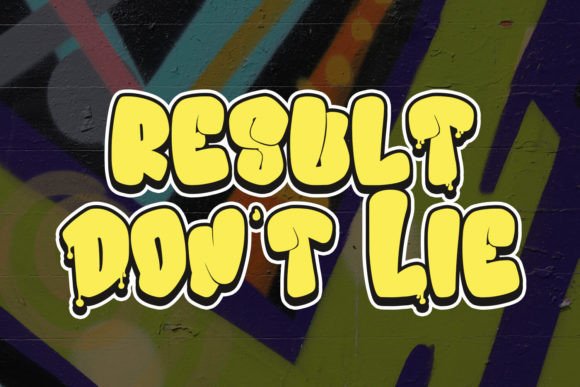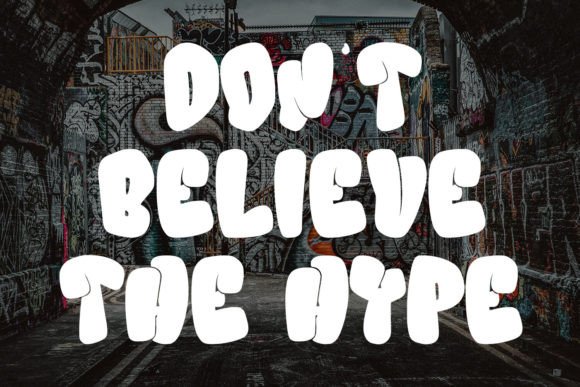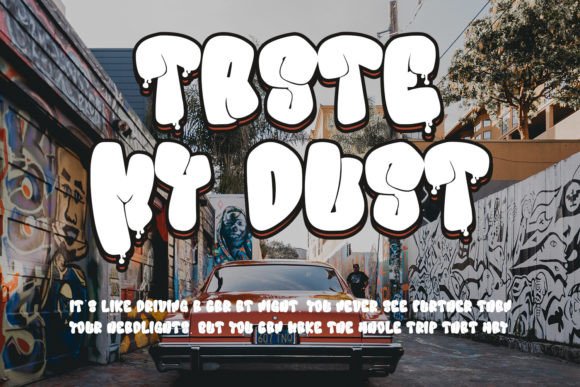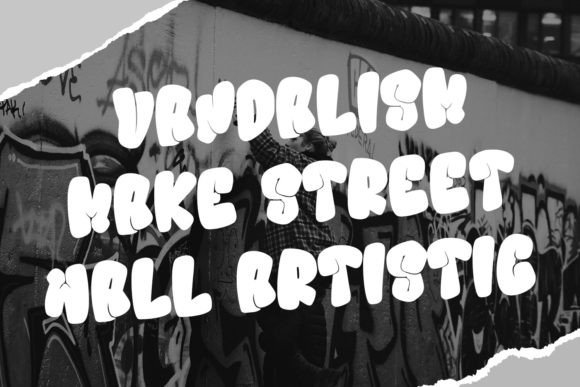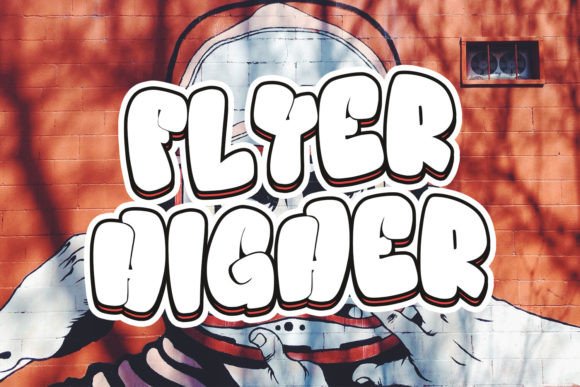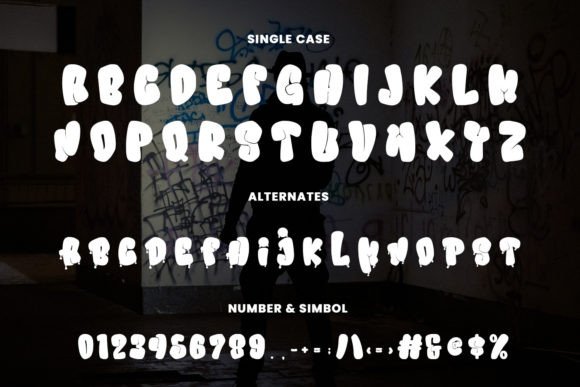
Unleash Your Creativity with the Perfect Font
Do you remember that moment when you finally found the perfect font to elevate your design project? The one that speaks to your creativity and makes your work stand out? For designers, that moment is what makes all the hard work worth it. For some, that moment is now, with the introduction of the Bubble Paint Font.
Bubble Paint Font is a bold, fun, and versatile display font, perfect for making a statement in your design. With its unique blend of ligatures and alternates, this font is designed to give you the creative freedom to experiment and push the boundaries of your work. Whether you’re designing a logo, creating a social media campaign, or writing a book title, the Bubble Paint Font is the perfect companion to bring your ideas to life.
Bubble Paint Font Key Features
- Unique Characteristics: Features a unique, hand-painted design with a bubble-like texture, giving it a playful and whimsical feel
Bubble Paint Font Review
As a designer, I was initially drawn to the whimsical and playful vibe of the Bubble Paint Font. It’s perfect for creating eye-catching headings and titles that add a touch of fun to your design.
- The font’s irregular shapes and bubbly texture add a unique visual interest to any design.
- It’s highly customizable, allowing you to adjust the color, size, and spacing to fit your design needs.
- The font is available in a range of weights, from light to bold, making it versatile for various design applications.
- The font may not be suitable for body text, as its irregular shape can make it difficult to read at smaller sizes.
- The font’s playful nature may not be suitable for formal or professional designs, such as business reports or academic papers.
- The font may require additional design elements to balance out its visual impact, as it can be quite bold and attention-grabbing.
Overall, I think the Bubble Paint Font is a great addition to any designer’s toolkit, but it’s essential to use it judiciously and consider its limitations when selecting a font for your design project.
Bubble Paint Font: A Practical Application Guide
Experiment with different font sizes, colors, and styles to create a unique design. Use the Bubble Paint Font in combination with other design elements to add visual interest to your design.
The Bubble Paint Font is ideal for creating playful and whimsical designs, such as children’s books, greeting cards, and social media graphics. It’s also great for adding a touch of personality to presentations and documents.